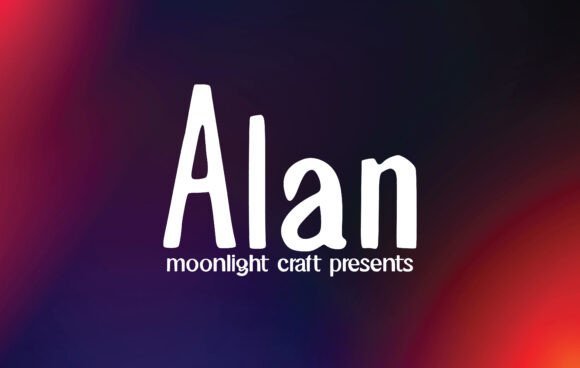
The Art of Creative Expression: Introducing Alan Font
Have you ever been in a moment of pure creative bliss, where the ideas just flow and your imagination runs wild? For designers, this feeling is what drives us to push the boundaries of innovation and create something truly remarkable. And that’s exactly what the Alan Font is designed to do – take your creative ideas to the highest level and bring them to life in a way that’s both beautiful and impactful.
Alan Font is a stunning handwritten font that’s perfect for creating eye-catching logos, branding, and quotes. With its elegant and unique style, it’s the perfect tool for designers who want to add a personal touch to their work. Whether you’re working on a new project or just need a font to elevate your existing designs, Alan Font is a valuable addition to your creative arsenal.
Alan Font Key Features
- Font Family: Alan Font is a sans-serif font family designed for digital use.
- Size: The font family includes a range of weights from Thin to Black, with corresponding font sizes.
- Resolution: Optimized for high-resolution displays, suitable for use on screens with resolutions up to 4K.
- Unique Characteristics: Alan Font features a modern and clean design, with a focus on legibility and readability, making it suitable for digital interfaces, signage, and publishing.
Alan Font Review
Overall, I found Alan Font to be a solid choice for body text, with a clean and modern aesthetic. ✨ The font’s versatility allows it to work well in a variety of contexts, from digital interfaces to print materials.
- Clear and legible at small sizes
- Good for body text due to its readability
- Supports both Latin and Cyrillic scripts
However, I did encounter some limitations while using Alan Font. ⚠️ The font’s design can sometimes feel a bit generic, lacking the unique character that some other fonts possess. Additionally, the font’s x-height is a bit larger than average, which can affect the overall line spacing in certain contexts.
Despite these limitations, I still believe Alan Font is a great choice for many projects. Its clean design and wide range of language support make it a solid addition to any font collection. With a bit of finesse in terms of line spacing and text arrangement, Alan Font can produce some truly professional-looking results.
Getting the Most Out of Alan Font
For optimal results, use Alan Font in conjunction with a clear and simple design. The font’s unique features will shine when paired with a clean and minimalistic aesthetic.
Alan Font is ideal for use in logos, business cards, and other design elements where a unique and modern look is desired. It’s also great for use in digital products, such as e-books and presentations, where a clean and readable font is essential.
Q: What is the recommended font pairing for Alan Font?
The Alan Font is a versatile font that can be paired with a variety of fonts to create visually appealing combinations. Some recommended font pairings include:
– Alan Font with Open Sans for a modern and clean look
– Alan Font with Lato for a stylish and sophisticated look
– Alan Font with Montserrat for a bold and edgy look
Experiment with different font pairings to find the perfect combination for your design project.